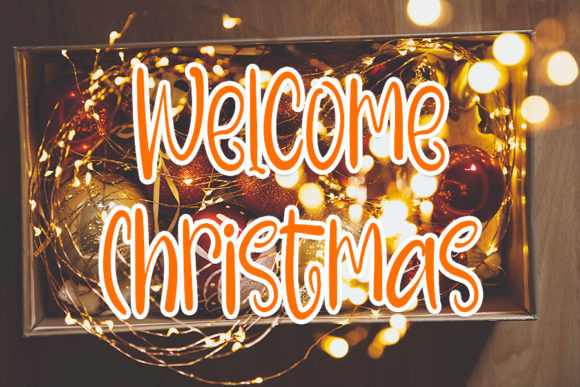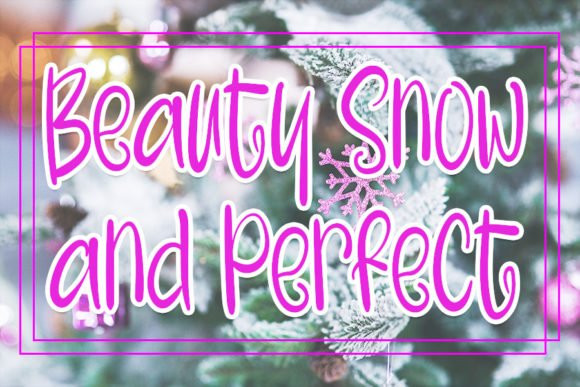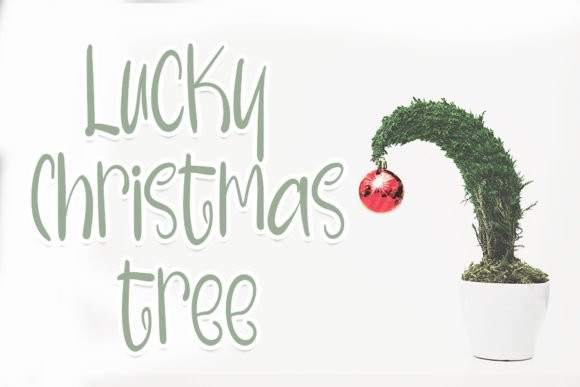
Welcome Christmas Font
Welcome Christmas is a sweet and clean handwritten font. Take your Christmas crafting projects to the next level with this amazing script.